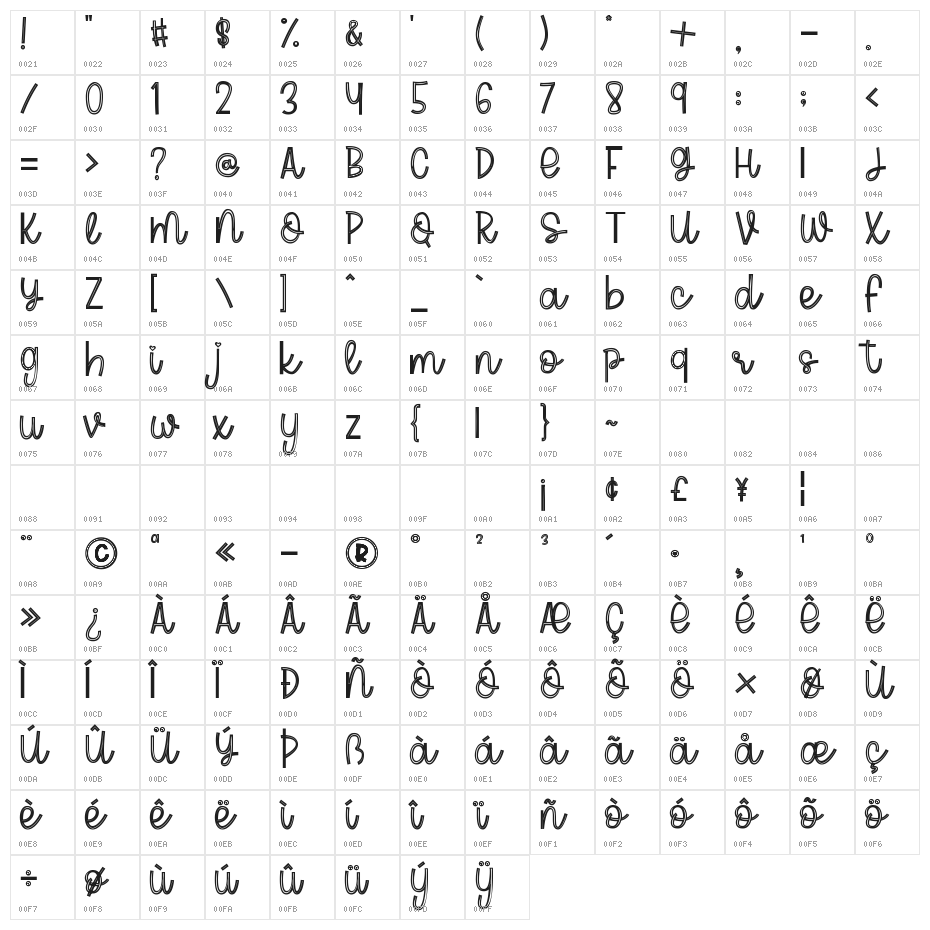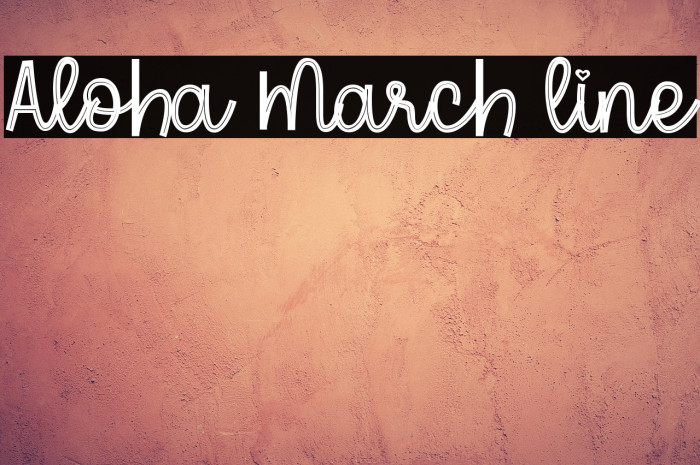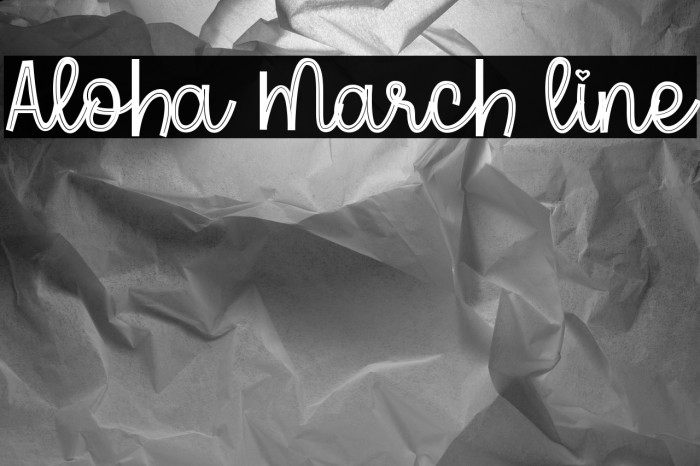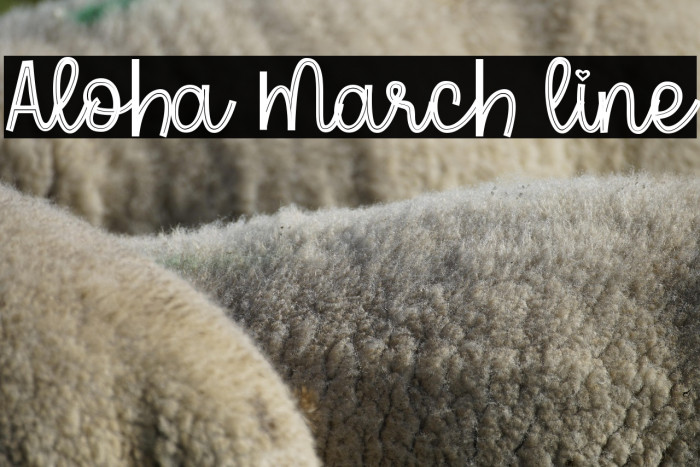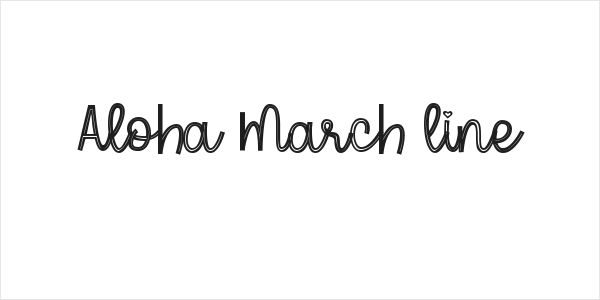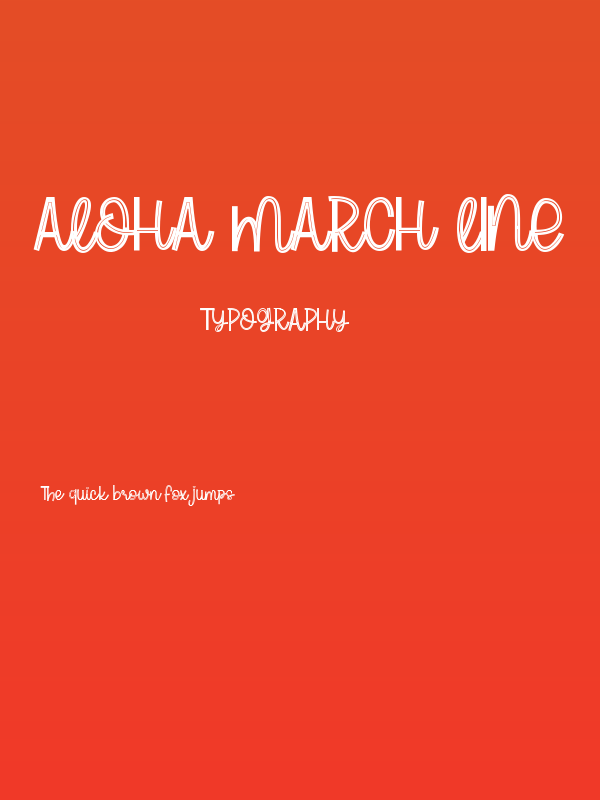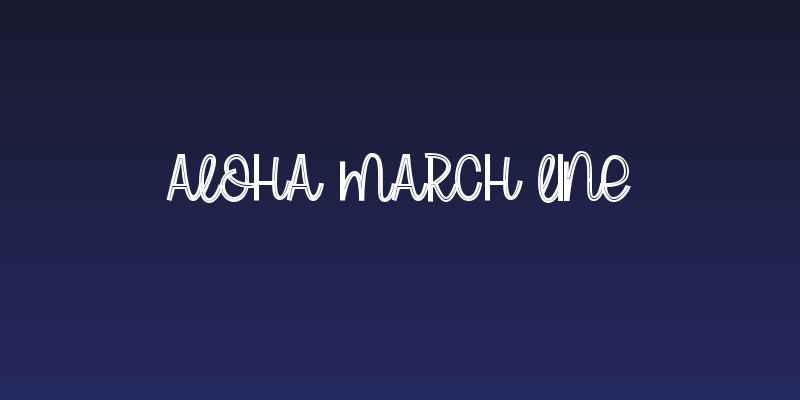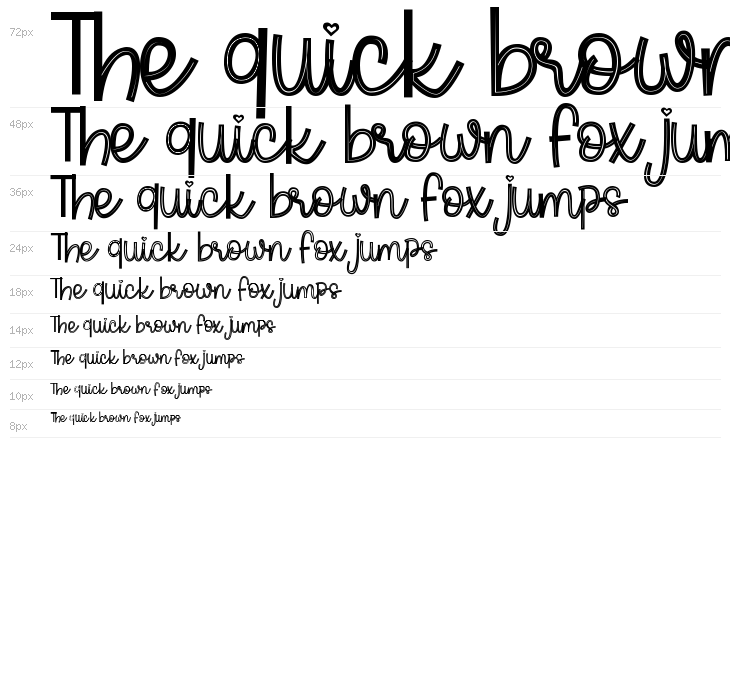
Aloha March line Font
Aloha March line Description
This font features a playful and whimsical design, characterized by its hand-drawn, casual script style. The uppercase letters are bold and slightly condensed, with a unique flair that includes small embellishments like hearts on the 'i' and 'j'. The lowercase letters maintain a consistent flow, enhancing the font's informal and friendly appearance. Numbers and special characters are designed with the same playful touch, making them suitable for creative projects. The overall look is lively and engaging, perfect for adding a personal touch to any design.
| Proposed Projects | Ideal for greeting cards, children's books, playful branding, and social media graphics. |